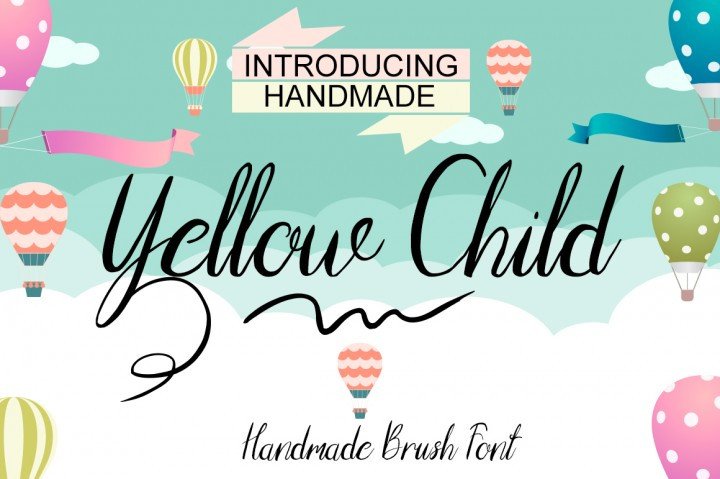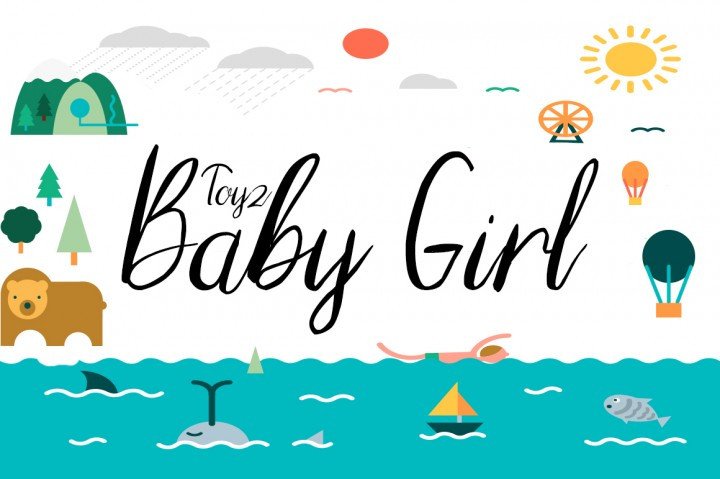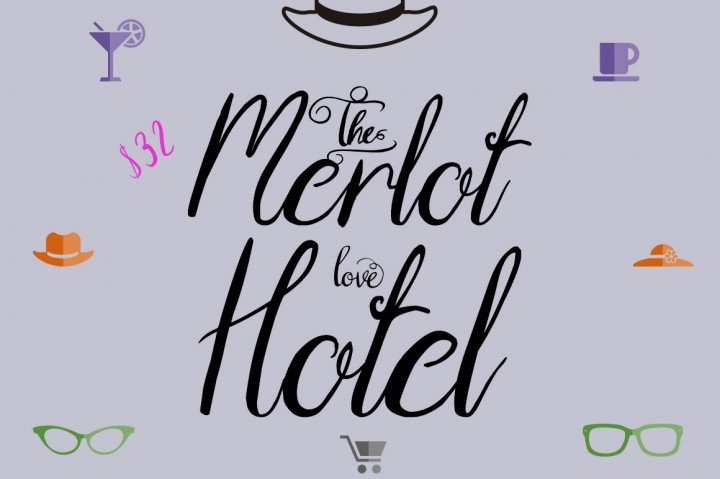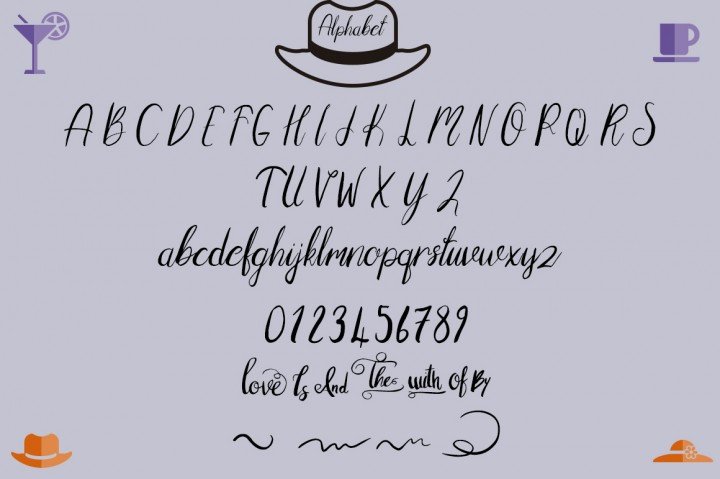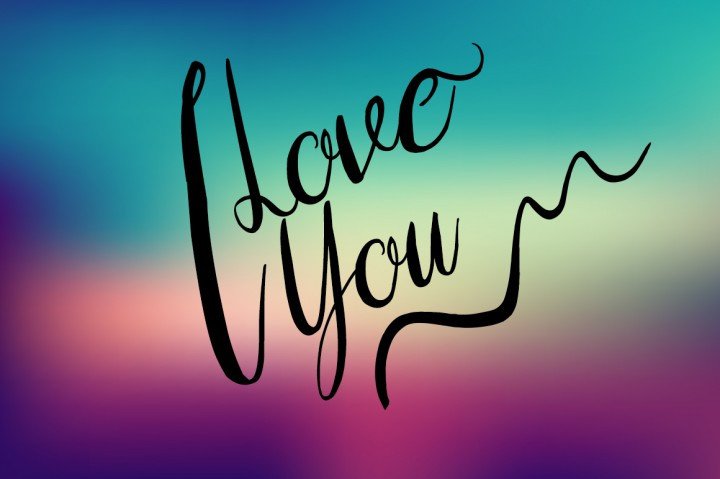
Yellow Child Font
About Yellow Child Font
Yellow Child is an elegant handmade brush font and can be used for various purposes.
Will look beautiful on your own logo, an invitation letter, a book cover, or anything else you can imagine this beautiful elegant typeface on.